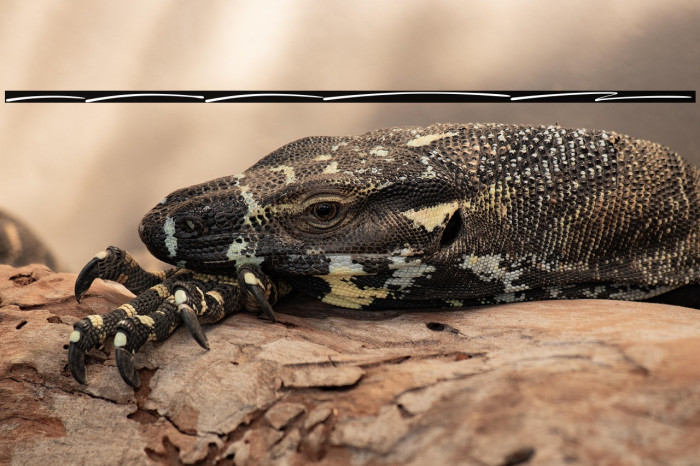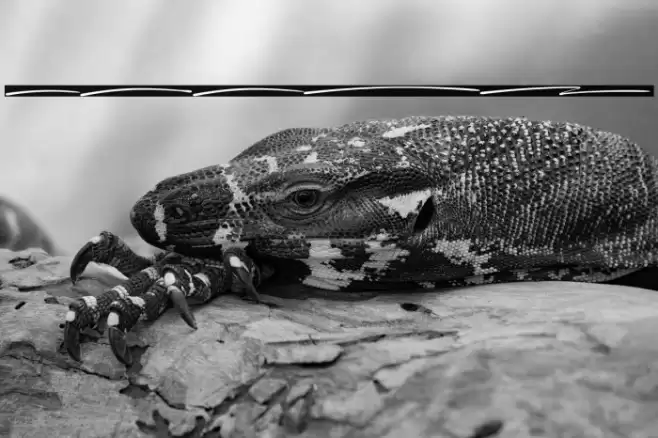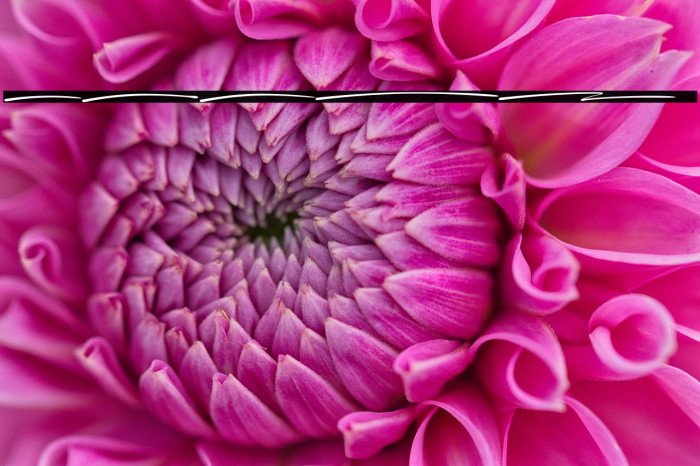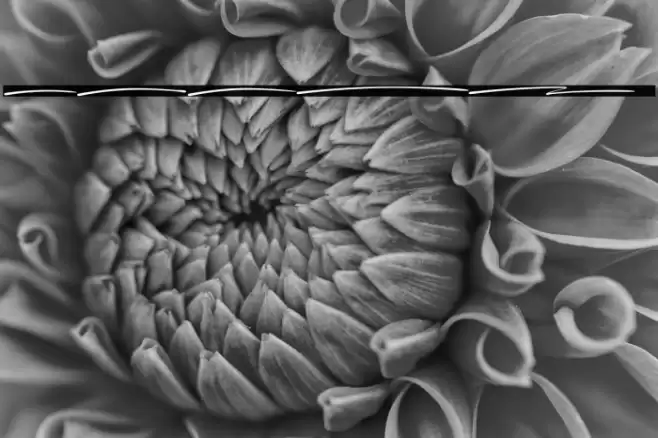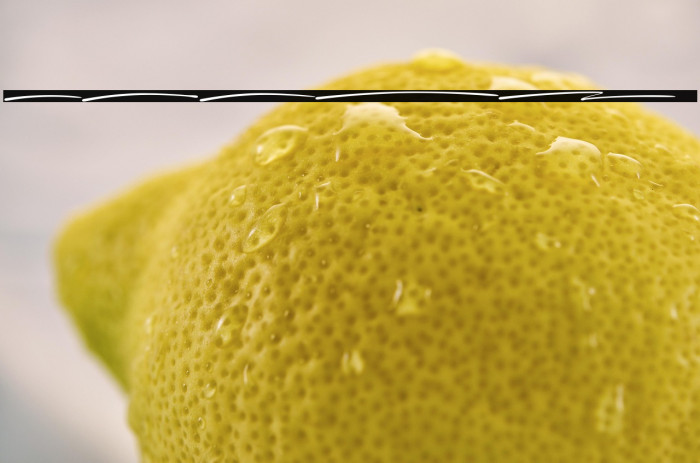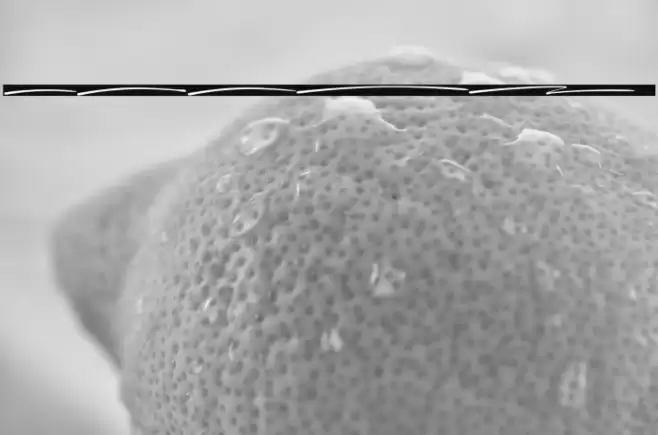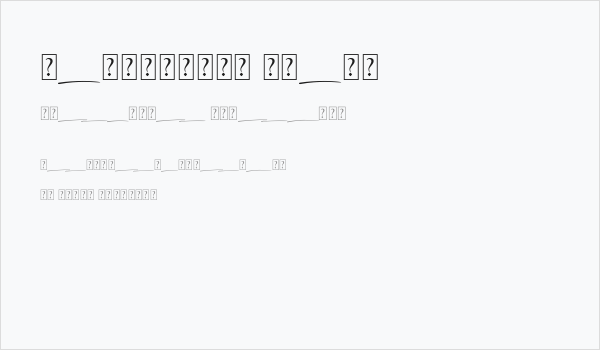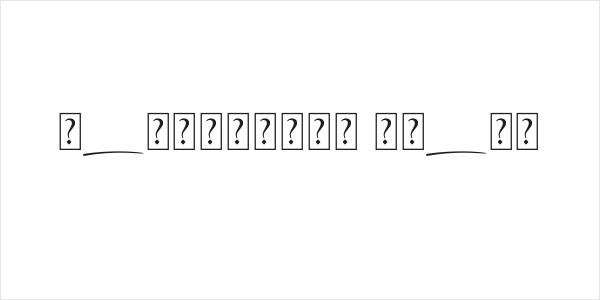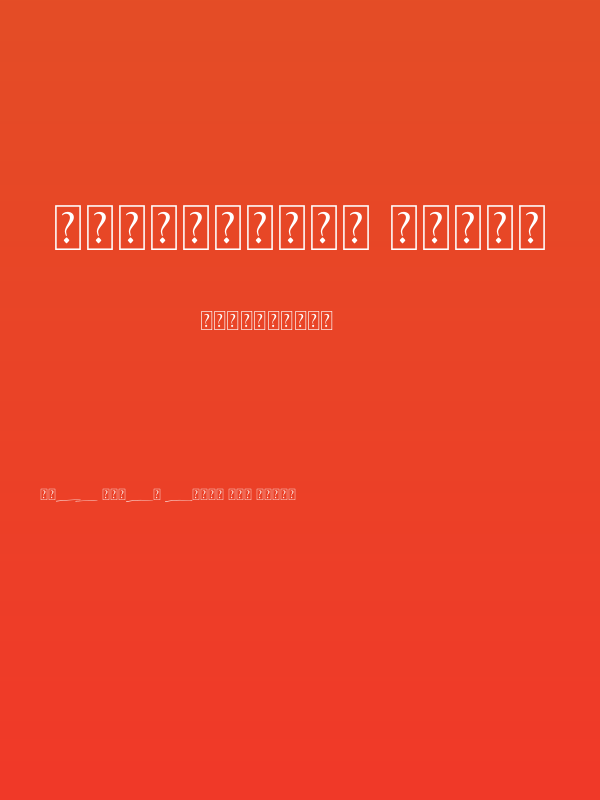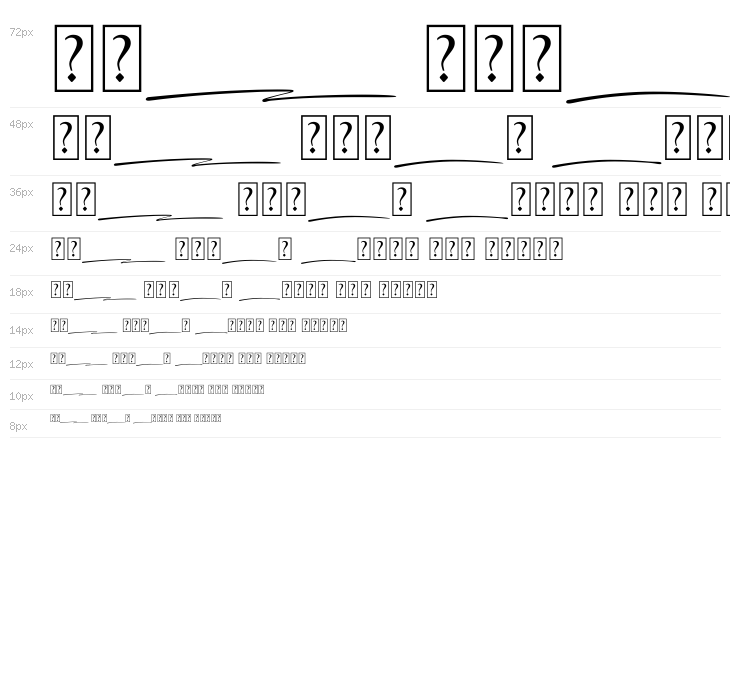
Marthinoul Swash Font
Marthinoul Swash Description
This font features a playful and whimsical design, characterized by its swash elements that add a sense of elegance and flair. The letters are crafted with smooth curves and flowing lines, giving it a dynamic and lively appearance. The uppercase letters are particularly ornate, with extended strokes that create a sense of movement. The lowercase letters maintain a consistent style, complementing the uppercase with their own subtle flourishes. The numerals and special characters are designed to match the overall aesthetic, ensuring a cohesive look across all text. This font is perfect for projects that require a touch of sophistication and creativity.
| Proposed Projects | Ideal for wedding invitations, greeting cards, branding, and decorative headlines. |